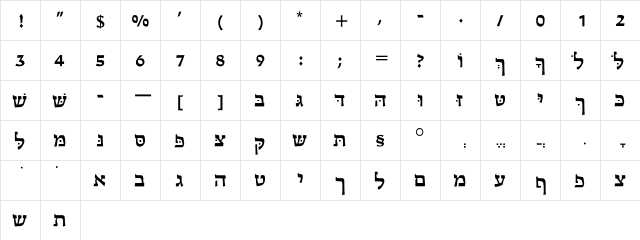
CSL-Hadassah Regular
Design Context for CSL-Hadassah Typeface
CSL-Hadassah is a composed and adaptable typeface that performs quietly and consistently across a wide range of design contexts.